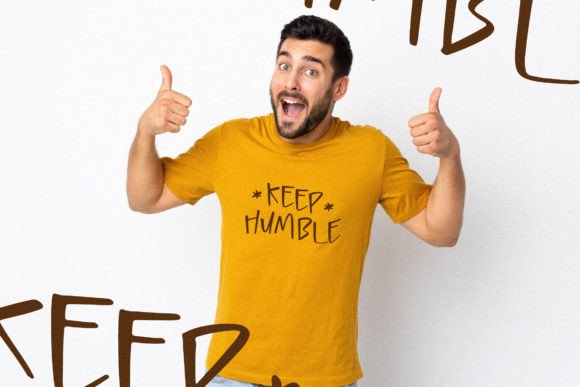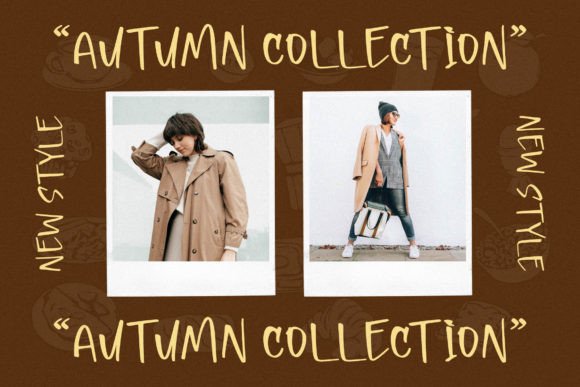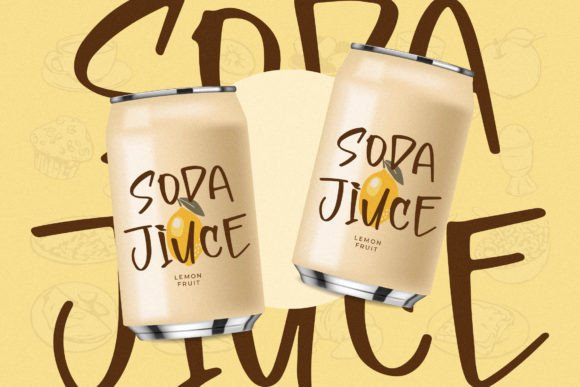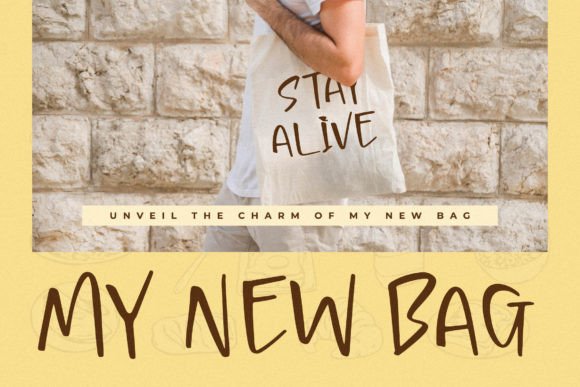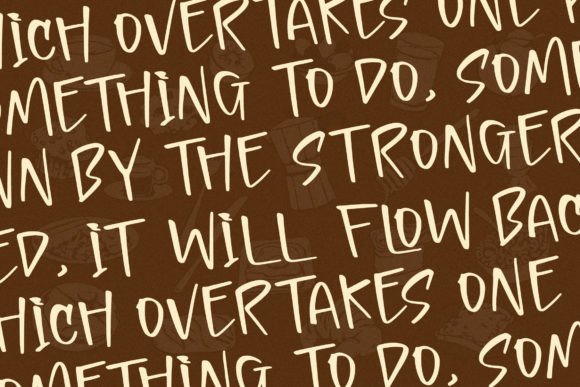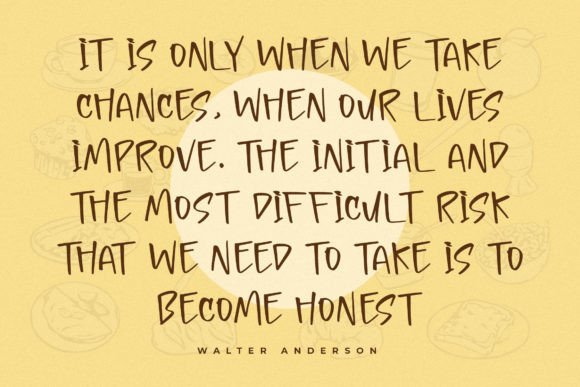
Meet Your New Best Friend: Honey Newton Font
Have you ever sat in front of your computer, staring at a blank page, trying to come up with the perfect design? You know, that moment when creativity is just a spark away, but it’s hard to catch? For designers like us, this is a familiar feeling. But what if I told you there’s a font that can help spark that creativity and make your designs shine?
Enter Honey Newton Font, a sweet and friendly handwritten font that’s perfect for adding a personal touch to your designs. With its natural and unique style, the possibilities are endless. Whether you’re creating a logo, a social media post, or a entire branding package, Honey Newton Font is the perfect companion to bring your ideas to life.
Honey Newton Font Key Features
- Font Style: Script, Handwritten, Elegant, Whimsical
- Unique Characteristics: Includes 100+ hand-drawn glyphs, supports ligatures, swashes, and flourishes
- Language Support: Supports Latin, Cyrillic, Greek, and many other languages
Honey Newton Font Review
Honey Newton is a charming font that exudes warmth and nostalgia. The script style is reminiscent of handwritten notes, making it perfect for adding a personal touch to digital designs. ✨ I appreciate the font’s subtle irregularities, which give it a unique and organic feel.
The font’s strengths lie in its versatility. It’s suitable for a wide range of applications, from invitations and greeting cards to digital graphics and signage. The font’s size and style can be easily adjusted to fit the tone and atmosphere of the design. ✨ It’s also relatively easy to read, even at smaller font sizes.
Limits and Considerations
- ⚠️ The font may not be the best choice for formal or professional designs, as its casual, handwritten style may come across as unprofessional.
- ⚠️ The font’s irregularities can sometimes make it difficult to achieve perfect text alignment or formatting.
- ⚠️ The font may not be as legible at very small font sizes or when used in low-contrast backgrounds.
Overall, Honey Newton is a delightful font that’s perfect for adding a touch of whimsy and personality to designs. While it may have some limitations, its unique charm and versatility make it a great addition to any designer’s toolkit.
Tip: Use Honey Newton Font for headings and titles to add a touch of elegance and sophistication to your design.
Tip: Use Honey Newton Font in combination with bold lines and minimalistic backgrounds to create a striking design.
Tip: Use Honey Newton Font for titles and headings in presentations and reports to add a touch of professionalism and sophistication.
Honey Newton Font is ideal for:
- Stationery and letterheads
- Photography and art projects
Remember to use Honey Newton Font in moderation and balance it with other design elements to avoid overwhelming the viewer.
Alternatives to Honey Newton Font for Designers
Great Vibes is a modern calligraphy font that is perfect for creating elegant and sophisticated designs. It features a flowing script that is ideal for use in invitations, quotes, and other creative projects. Compared to Honey Newton Font, Great Vibes has a more refined and polished look, making it suitable for high-end designs.
Canela Font
Canela is a beautiful script font that is reminiscent of traditional handwritten letters. It is perfect for use in wedding invitations, greeting cards, and other designs where a personal touch is needed. Compared to Honey Newton Font, Canela has a more rustic and vintage feel, making it suitable for designs that require a warm and inviting atmosphere.
Lobster is a fun and playful script font that is perfect for use in creative and whimsical designs. It features a bold and eye-catching look that is ideal for use in advertising, social media, and other projects where a bold statement is needed. Compared to Honey Newton Font, Lobster has a more dramatic and attention-grabbing look, making it suitable for designs that require a lot of visual impact.
Q: What is the recommended font size and line height for optimal readability with Honey Newton?
For optimal readability, we recommend using a font size between 12-24 points, depending on the context and intended audience. A line height of 1.2-1.5 times the font size is also recommended to ensure comfortable reading and prevent text from becoming too crowded.